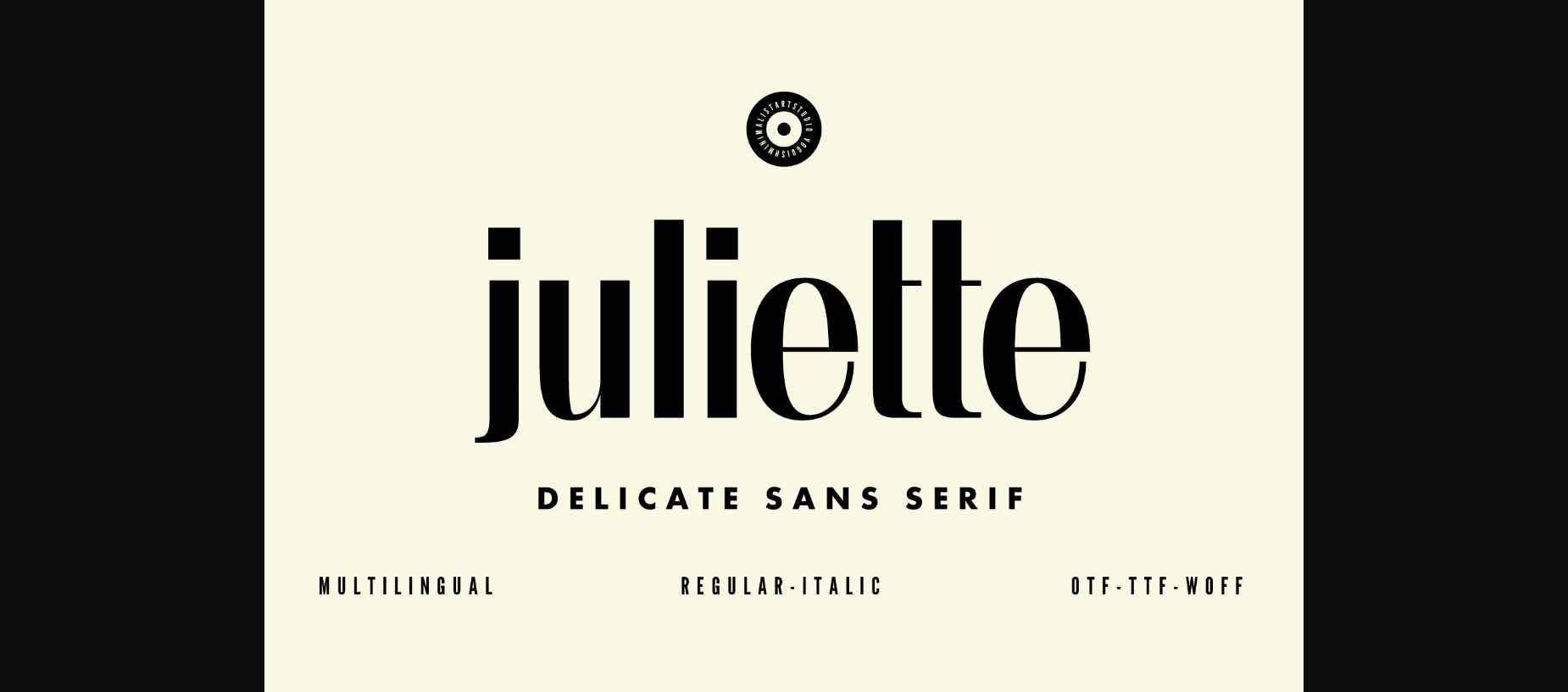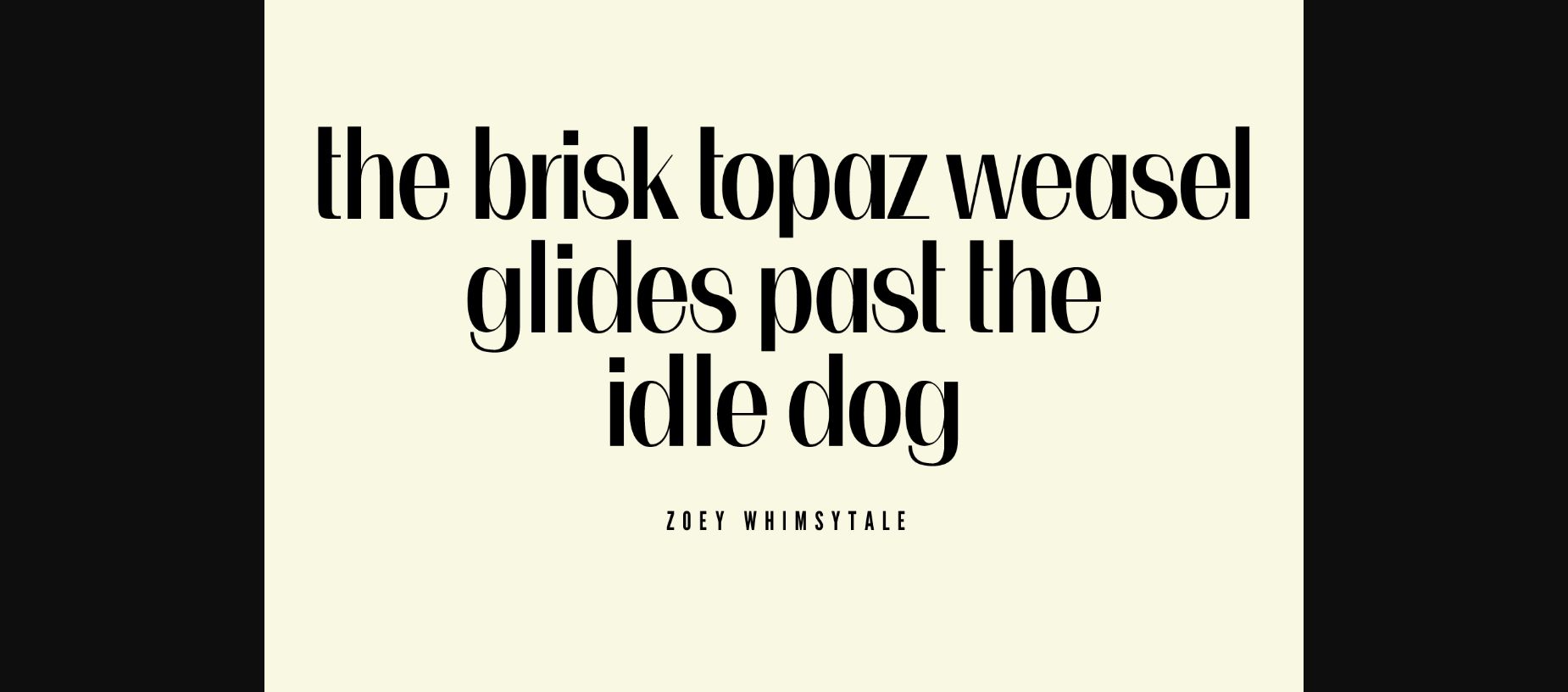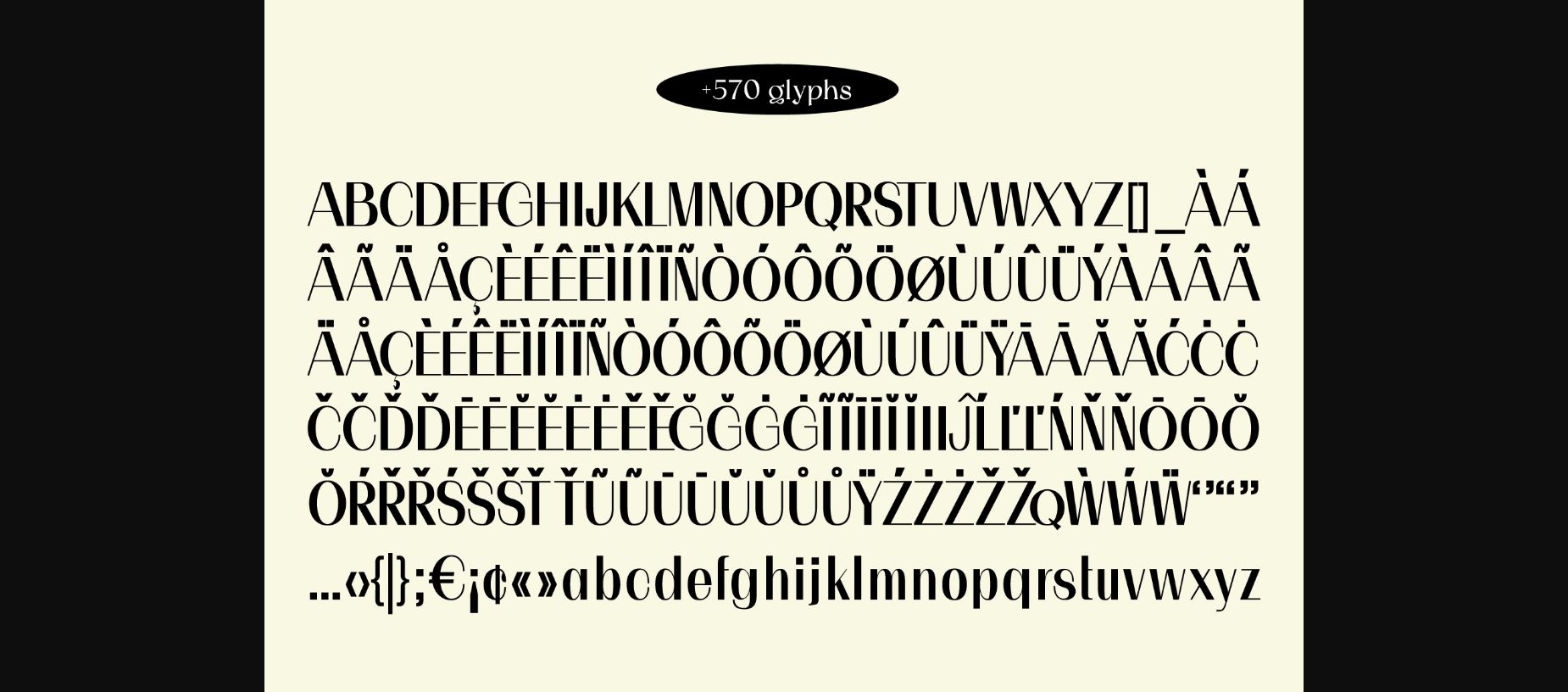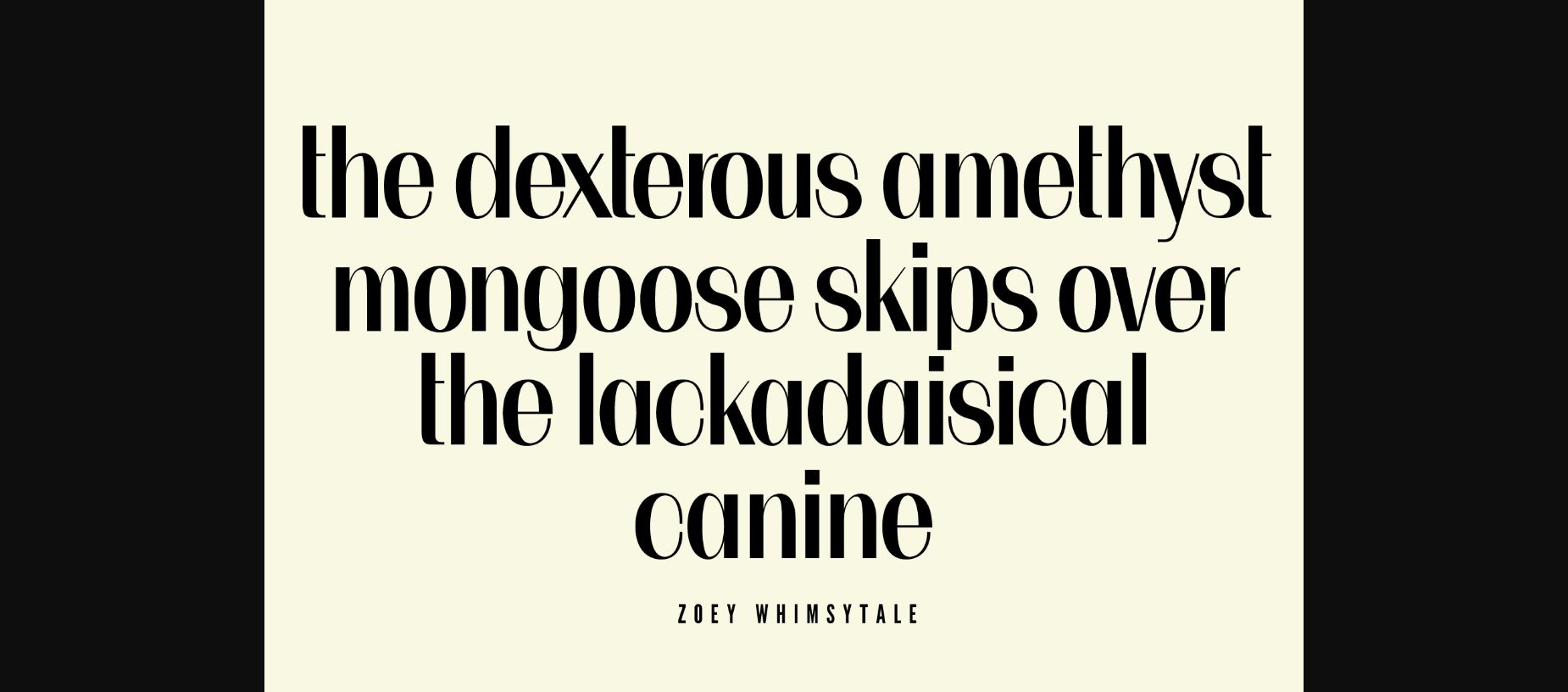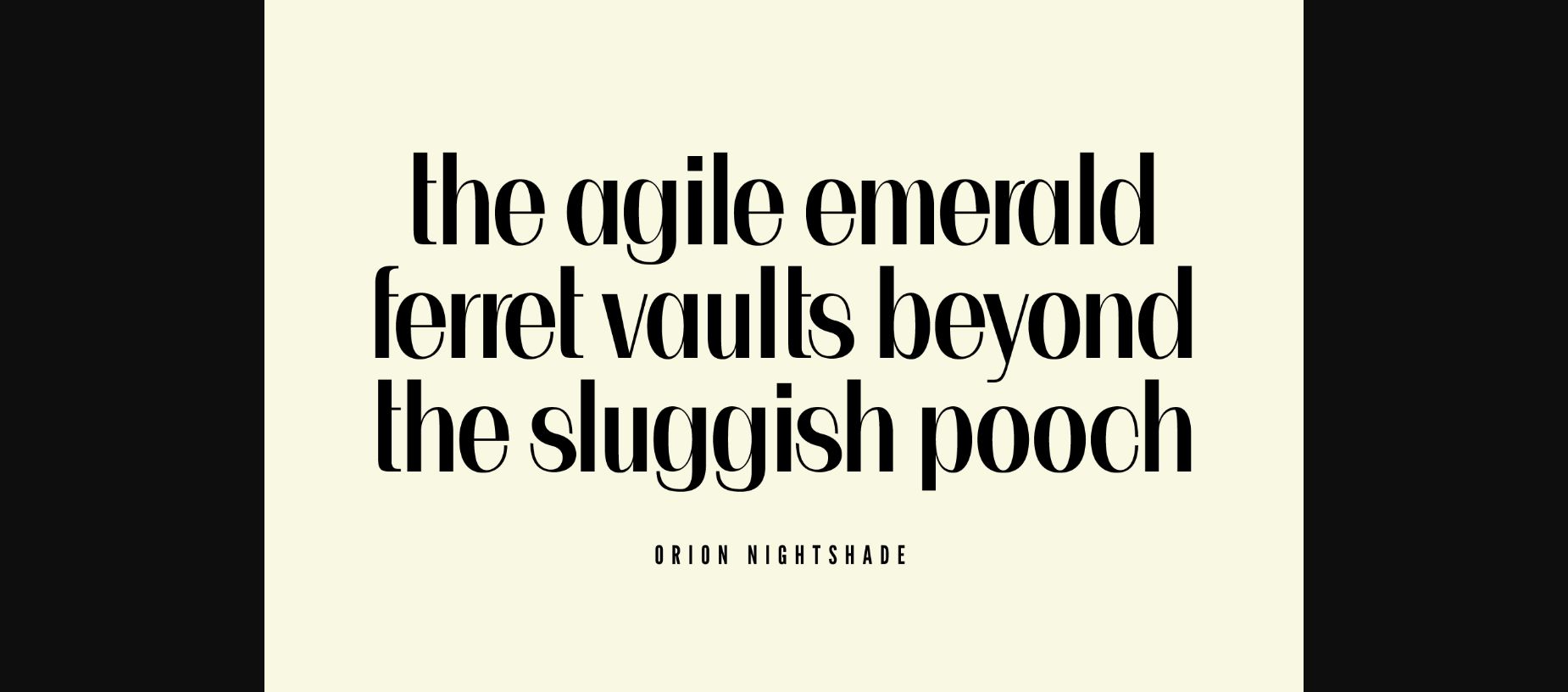
About Juliette Font
Meet ‘Juliette’ – the epitome of timeless elegance in a minimalist, modern sans-serif typeface. Delicately crafted, this chic font exudes femininity and sophistication, perfect for wedding invitations, branding, and editorials. Its versatility shines in digital and print, ensuring clarity and readability. Embrace the magic of simplicity with ‘Juliette’ and elevate your designs to new heights.